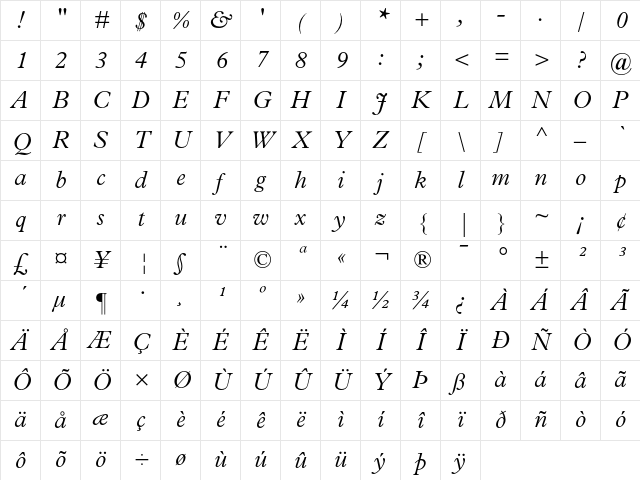
Plantin Light Italic
Complete Plantin Light Italic glyph index. Displaying only characters natively supported by Plantin Light Italic font.
Design Context for Plantin
Plantin is a composed and adaptable typeface that performs quietly and consistently across a wide range of design contexts. The slanted form adds forward momentum and visual energy. Its slender proportions lend an understated elegance to any composition.